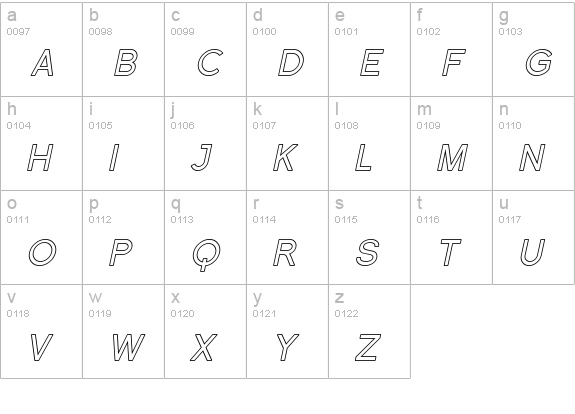
Florencesans SC Outline Italic is a distinctive, italic variant in the Florencesans typeface family \xE2\x80\x94 well suited to design and typography projects.
Florencesans SC Outline Italic font exudes a unique blend of elegance and modernity, making it perfect for adding a touch of sophistication to your design projects. The delicate outlines and slanted italics of this font create a striking visual impact, ideal for headers, titles, and other display purposes. Its clean, sans-serif style ensures readability while still standing out from the crowd. And the best part? Florencesans SC Outline Italic font is completely free to download at FontsMarket.com! Embrace the freedom to enhance your designs with this eye-catching typeface, whether for personal or commercial use. Elevate your creative projects with the sleek and stylish Florencesans SC Outline Italic font today.